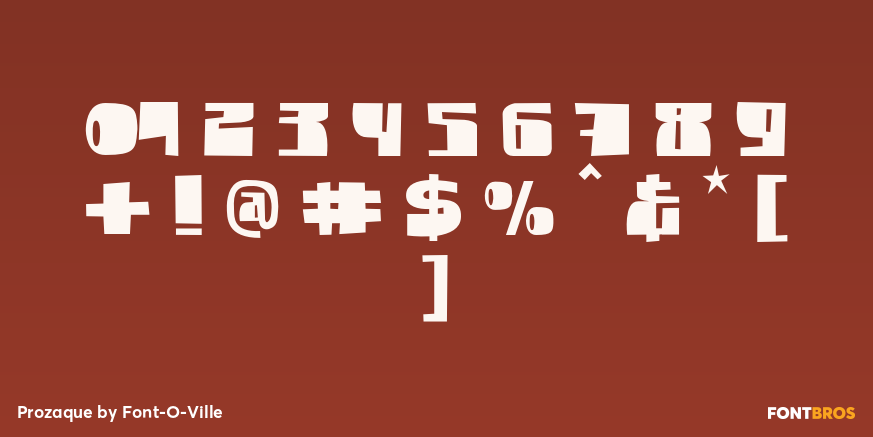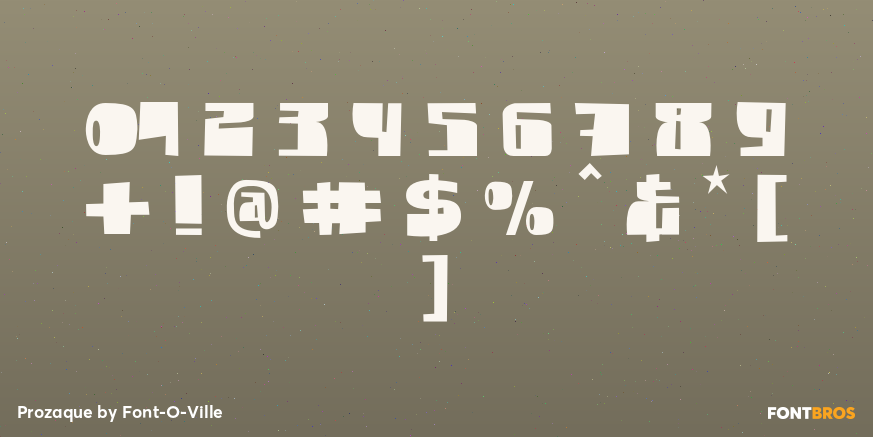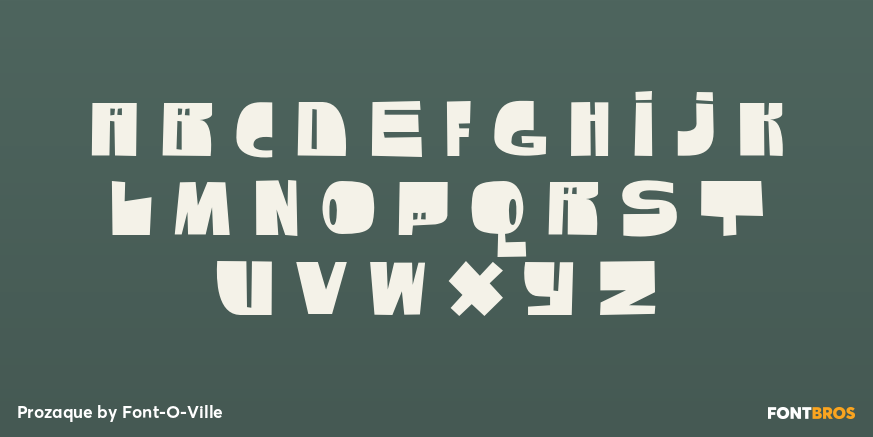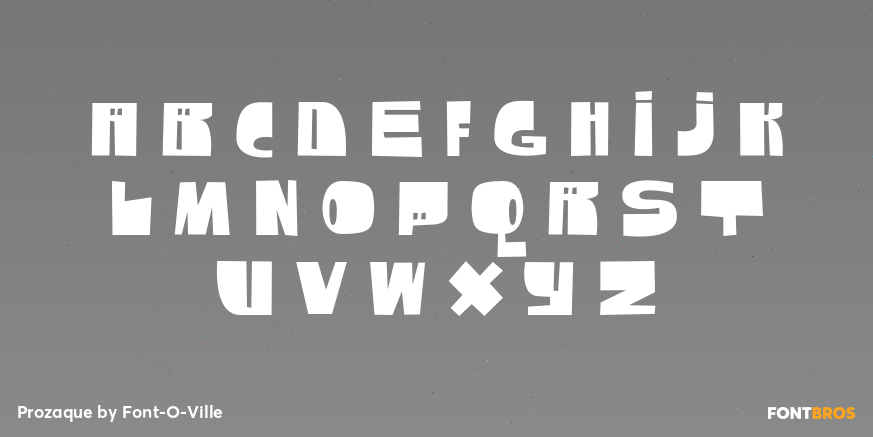
Prozaque
Meet Prozaque; The world's first face with real character! This cute little fellow is guaranteed to make you happy. It's an eye-catching informal typeface that even works great at big and not so big sizes.
Prozaque comes in OpenType font with lots of alternate characters which give your designs that cool custom look and it's now available without prescription!